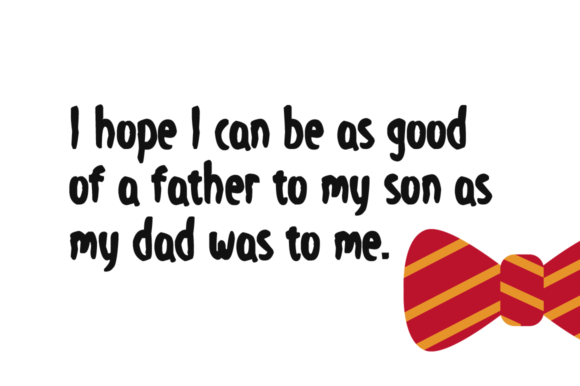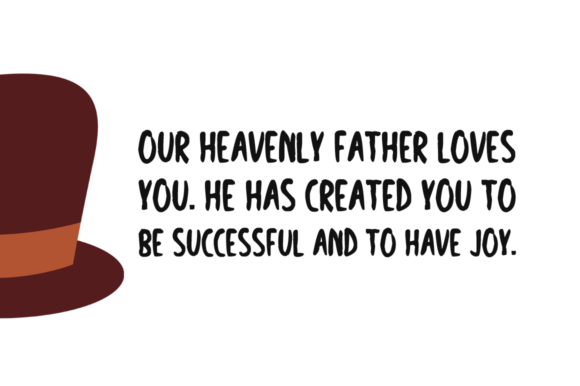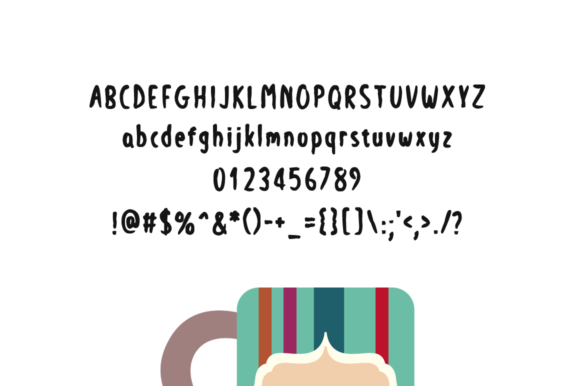
The Quest for the Perfect Font: Discovering Cool Father
Ah, the eternal struggle of finding the perfect font for a design project. I recall a particularly frustrating moment when I was working on a client’s branding materials. The brief was simple: create a bold, eye-catching display font that exuded a personal touch. After hours of scouring font libraries and testing various typefaces, I stumbled upon Cool Father – a unique and bold display font with a distinctly personal charm. In this article, I’ll share my experience with Cool Father, its features, and how to make the most of it in your designs.
An Honest Review of Cool Father
- ✨ Unique and bold design that grabs attention
- ✅ Easy to read, even in larger sizes
- 💡 Excellent for headlines, titles, and short text passages
- 🎨 Highly versatile and can be used in various design contexts
While Cool Father is an excellent font, there are a few minor quirks to be aware of:
- 🤔 Limited use for body text due to its bold nature
- ⚠️ May not be suitable for very small font sizes
A Practical Guide to Using Cool Father
- Experiment with OpenType features, such as ligatures and stylistic alternates, to add visual interest
- Explore the font’s glyphs and OpenType features to add depth to your design
The Backstory of Cool Father
Cool Father was designed by a talented type designer who aimed to create a font that exudes a sense of personality and charm. The design process involved experimenting with various letterforms and shapes to achieve a unique, bold look. The result is a font that’s both eye-catching and approachable.
Q: What type of projects is Cool Father best suited for?
A: Cool Father is ideal for designs requiring a bold, eye-catching font, such as headlines, titles, logos, and branding materials.
Q: Can I use Cool Father for body text?
A: While Cool Father is a great font, it’s not recommended for body text due to its bold nature. Instead, use it for short text passages or headings.
Q: Does Cool Father support OpenType features?
A: Yes, Cool Father supports OpenType features, including ligatures and stylistic alternates, which can add visual interest to your designs.